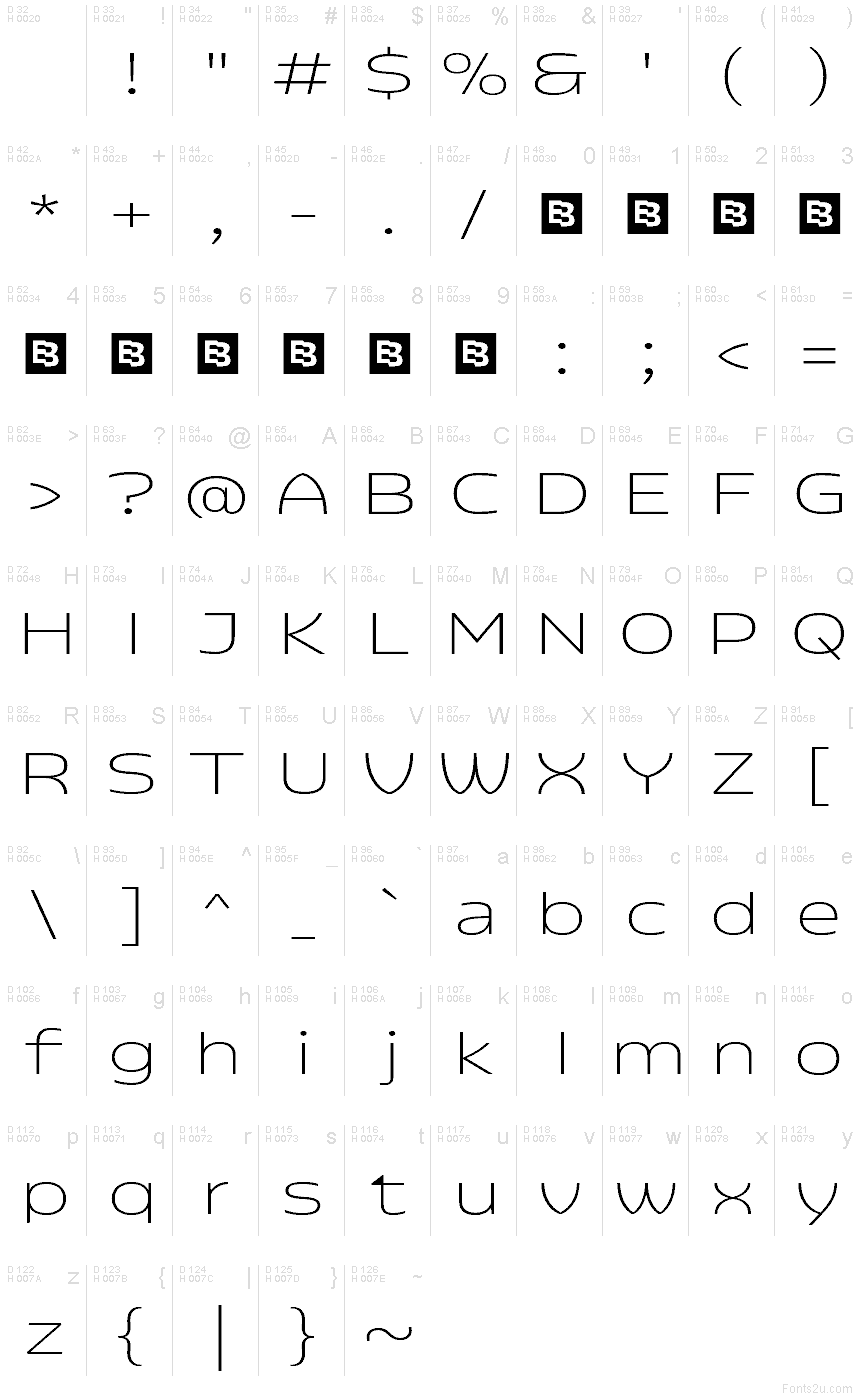
Pocas Trial Thin Expanded
Pocas Thin Expanded font by Eko Bimantara is a free expanded sans serif typeface in the Pocas family. Its wide stance and whisper-thin strokes create a cool, weightless presence—like wireframe lettering drawn with a precise, inky nib. Softly rounded corners keep it human, while the generous horizontals let words breathe without feeling flimsy.
Using Pocas Thin Expanded, headlines glide across space with poise, making it a natural fit for fashion mastheads, gallery posters, upscale packaging, tech landing pages, and lifestyle magazines. The rhythm is even, the spacing calm, so messages feel refined rather than loud. Pair this free font with a sturdy grotesk for body copy, and set it large with a touch of tracking to keep those airy lines crisp.